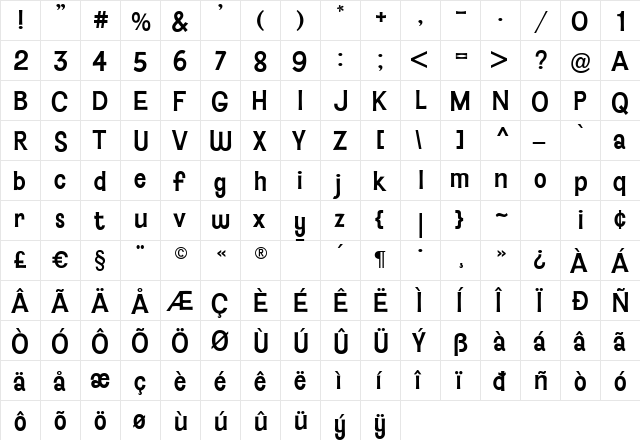
Blairesque Gothic JF Regular
Design Context for Blairesque Gothic JF Typeface
Blairesque Gothic JF takes a clean, functional approach — its unadorned letterforms prioritise legibility and work reliably across screen and print environments.
Font Pairing: Works well alongside a characterful serif or display font that can carry the expressive load while Blairesque Gothic JF handles the functional copy.
Pro Tip: Use Blairesque Gothic JF for UI labels, navigation, and short-form body copy where clean legibility is the priority.